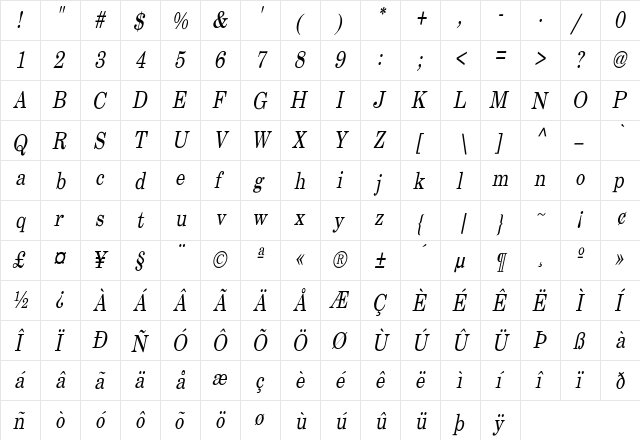
Century-Schoolbook-Normal Condensed Italic
Design Context for Century-Schoolbook-Normal Condensed Typeface
Century-Schoolbook-Normal Condensed is a composed and adaptable typeface that performs quietly and consistently across a wide range of design contexts. Its italic angle brings a sense of urgency and motion to the letterforms. The condensed width makes it efficient for tight spaces without sacrificing legibility.
Pro Tip: Use Century-Schoolbook-Normal Condensed for emphasis, pull quotes, and subheadings where its slanted energy can add rhythm to the layout.